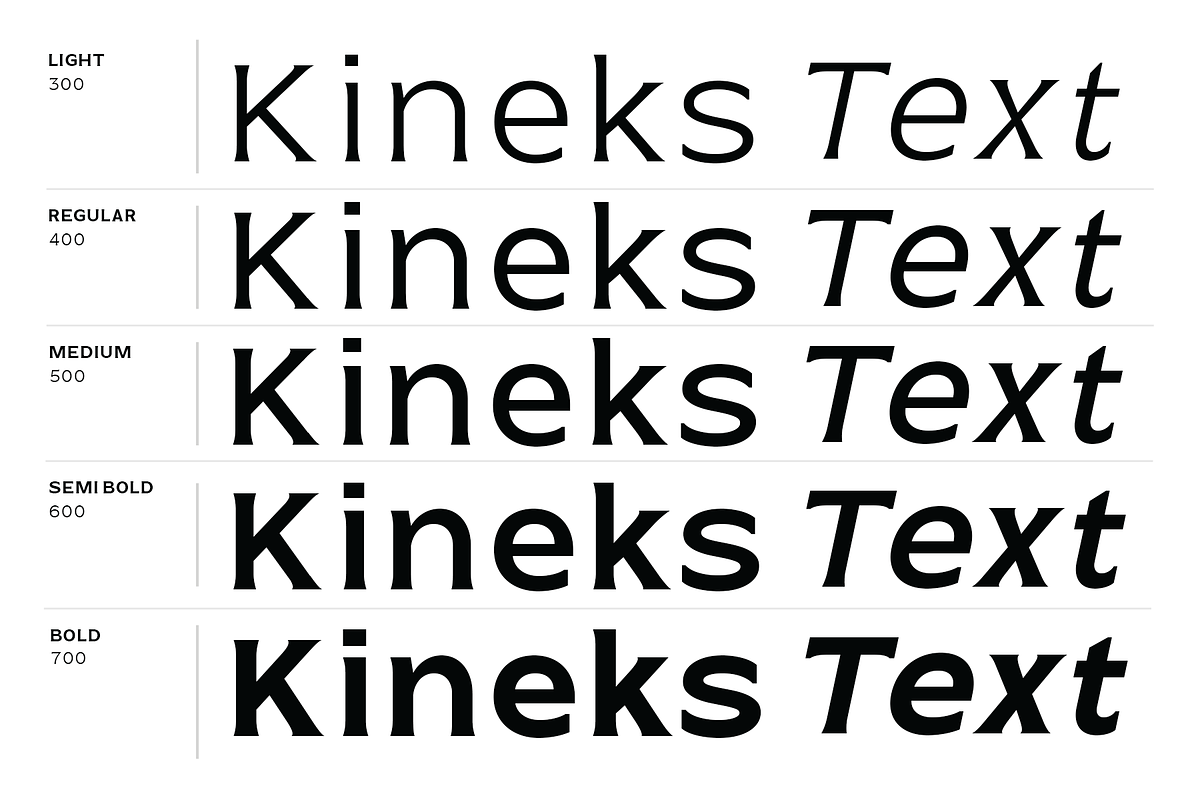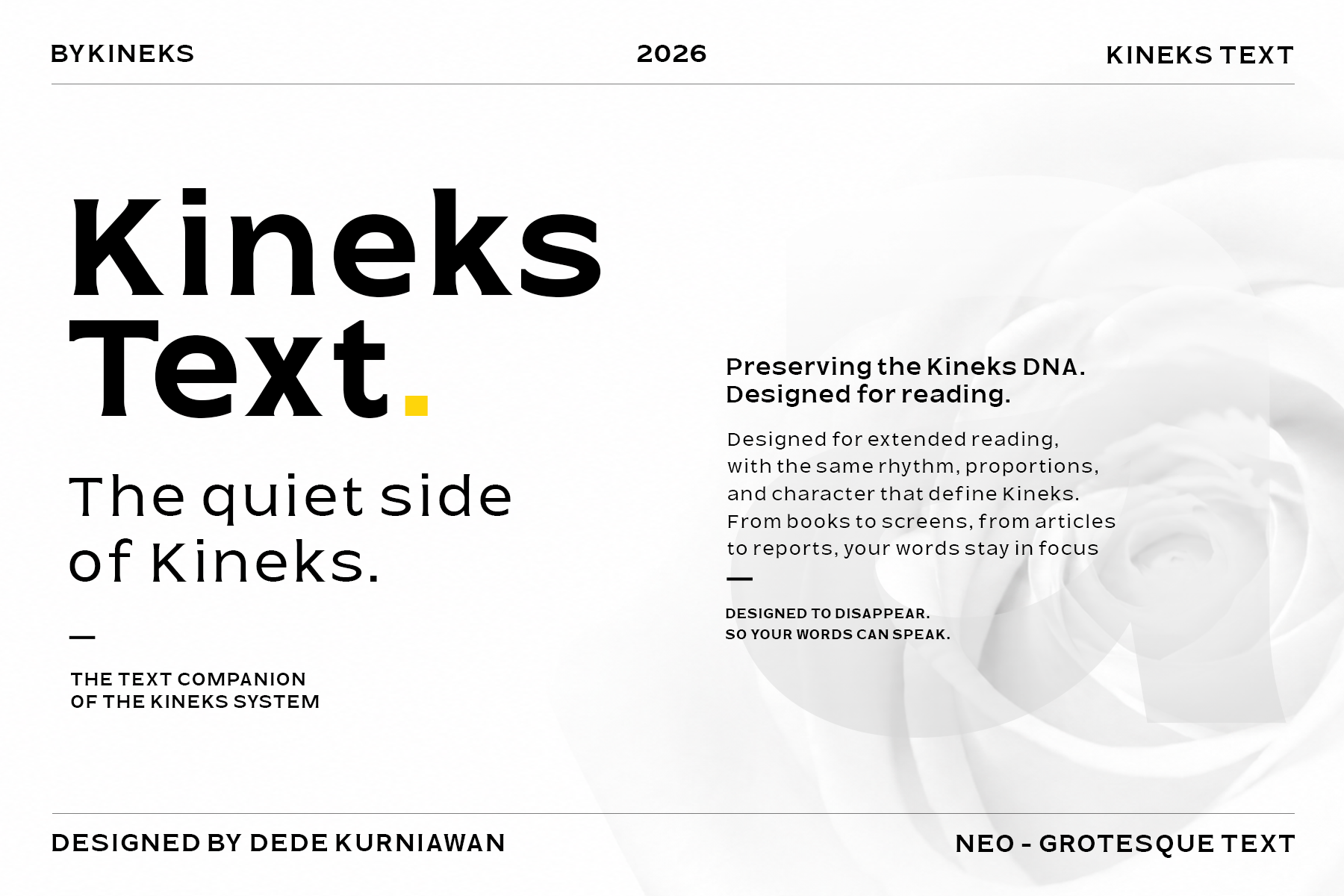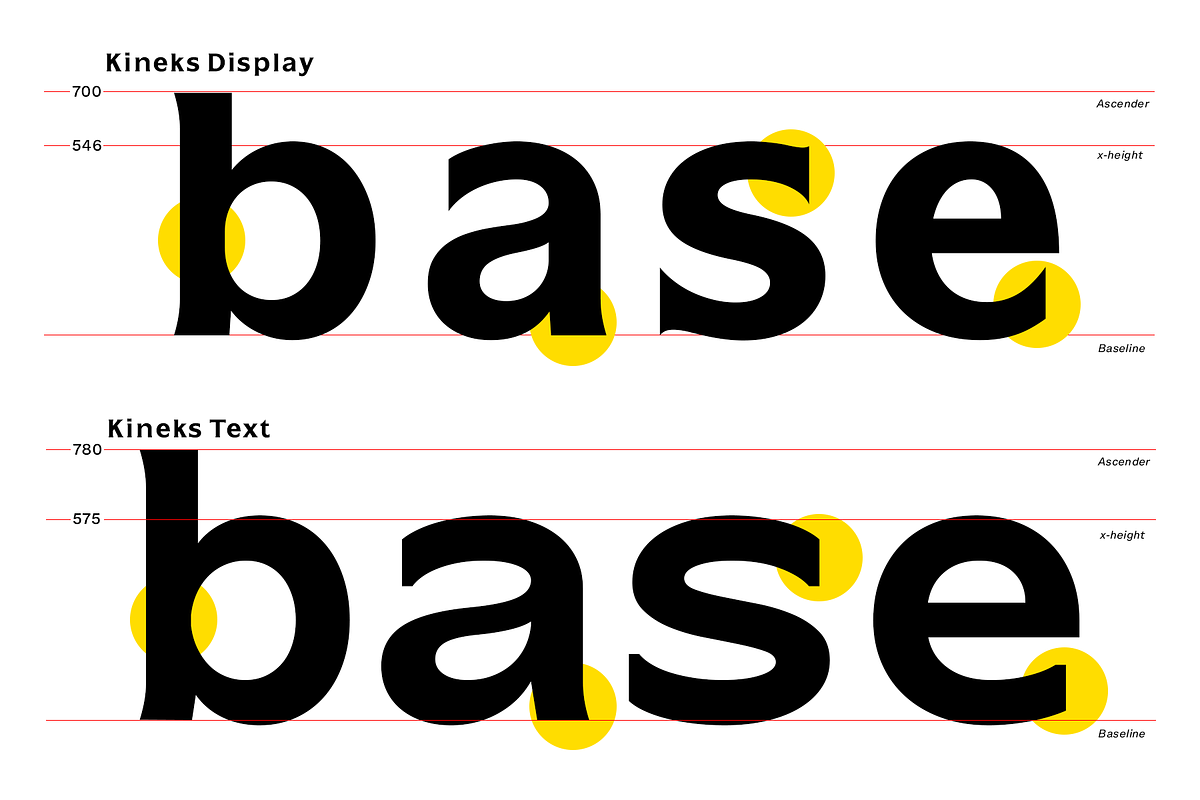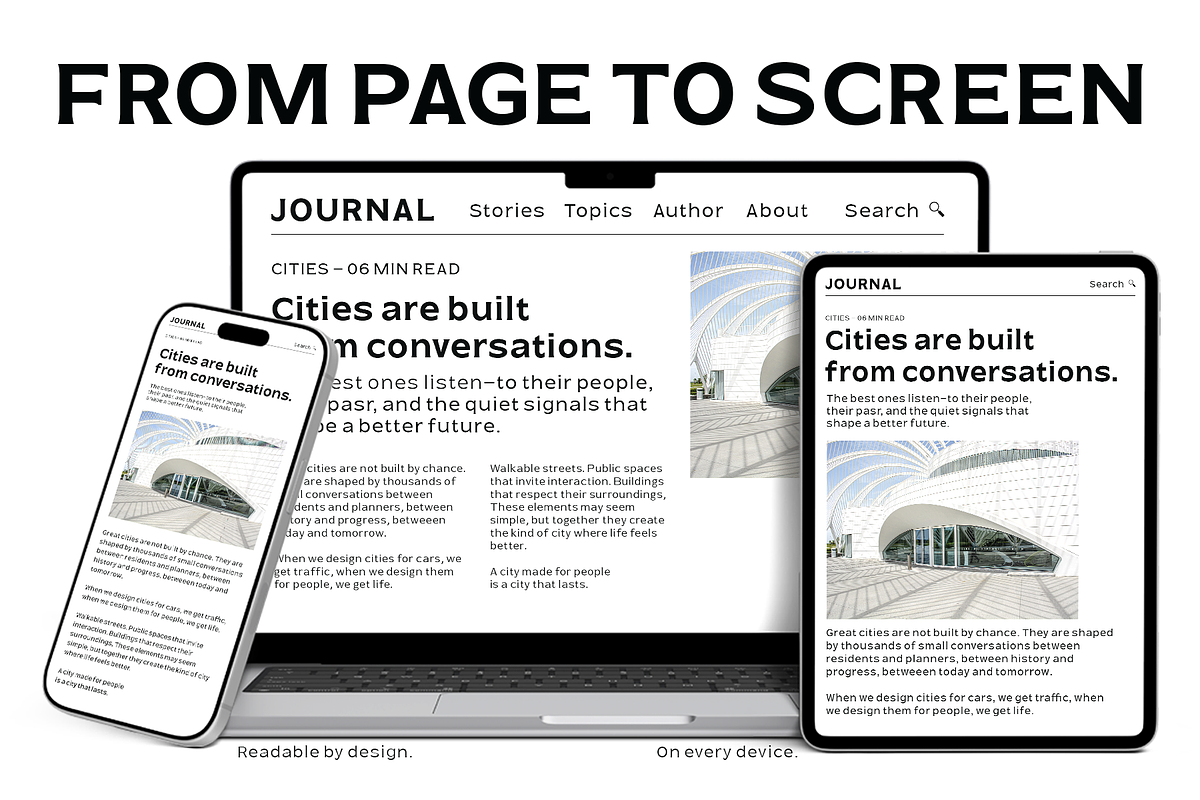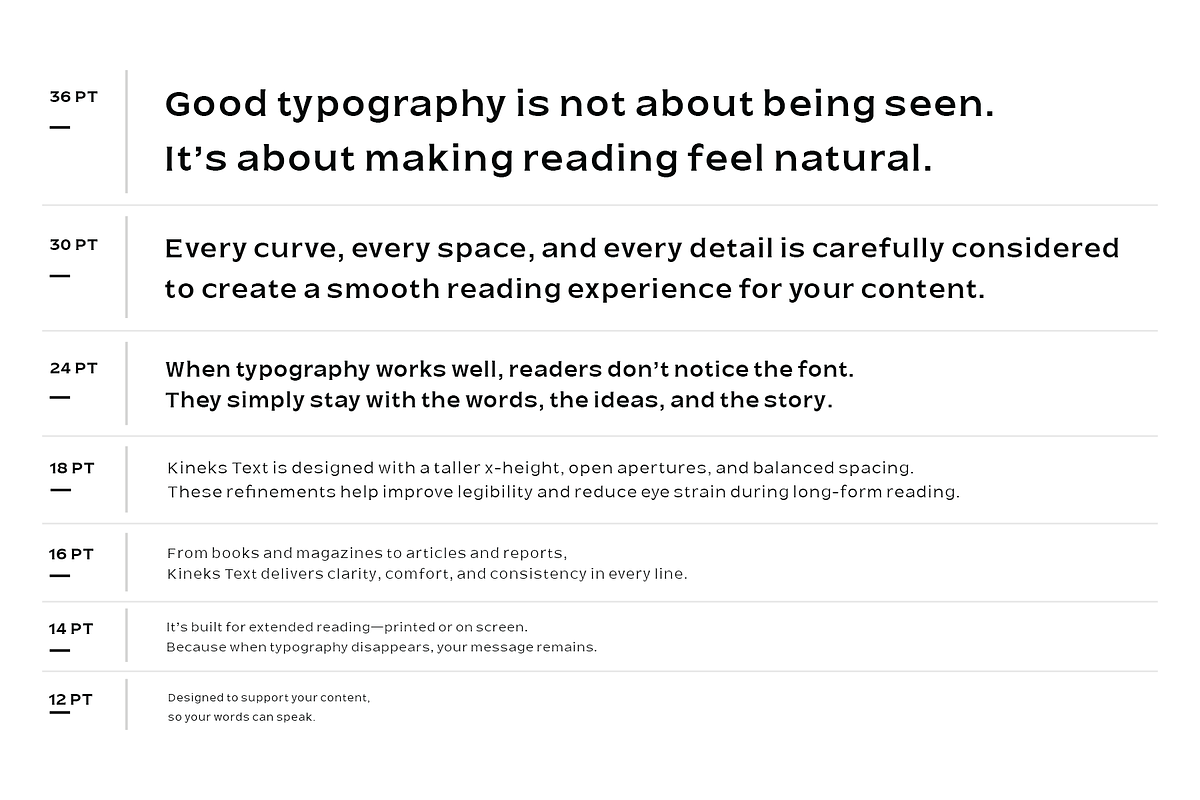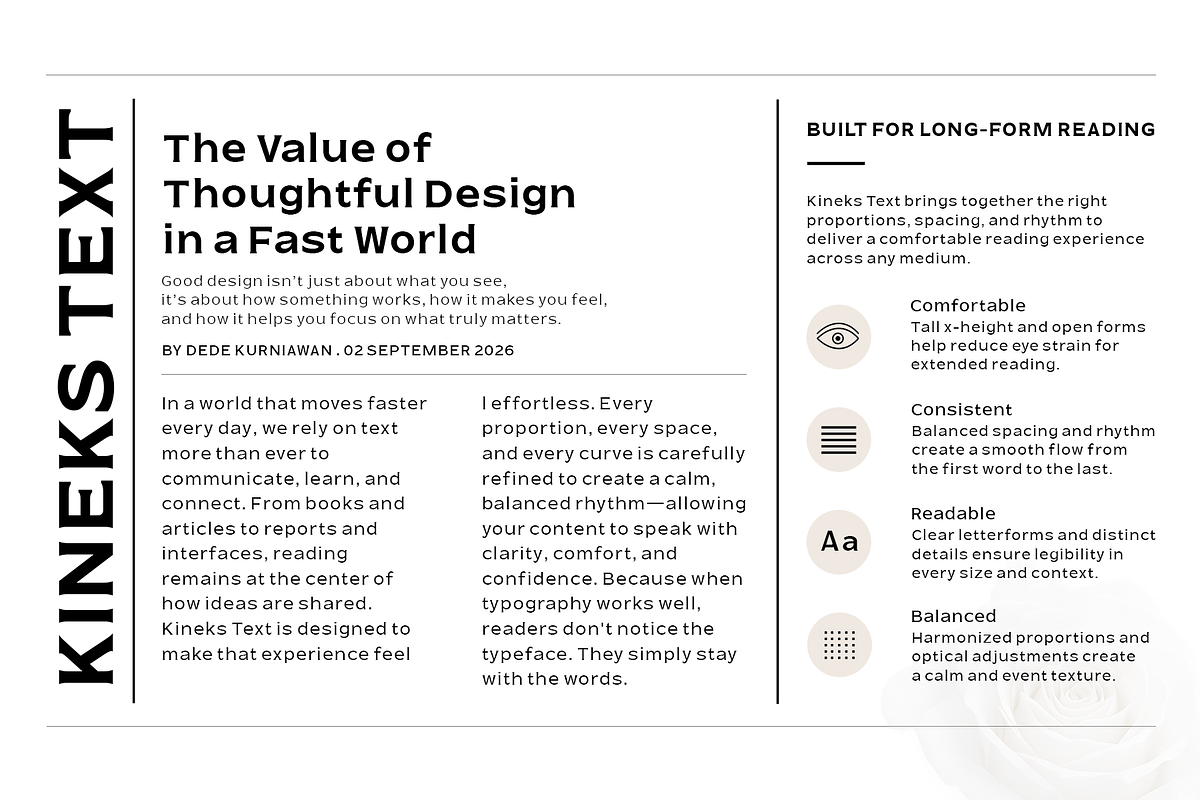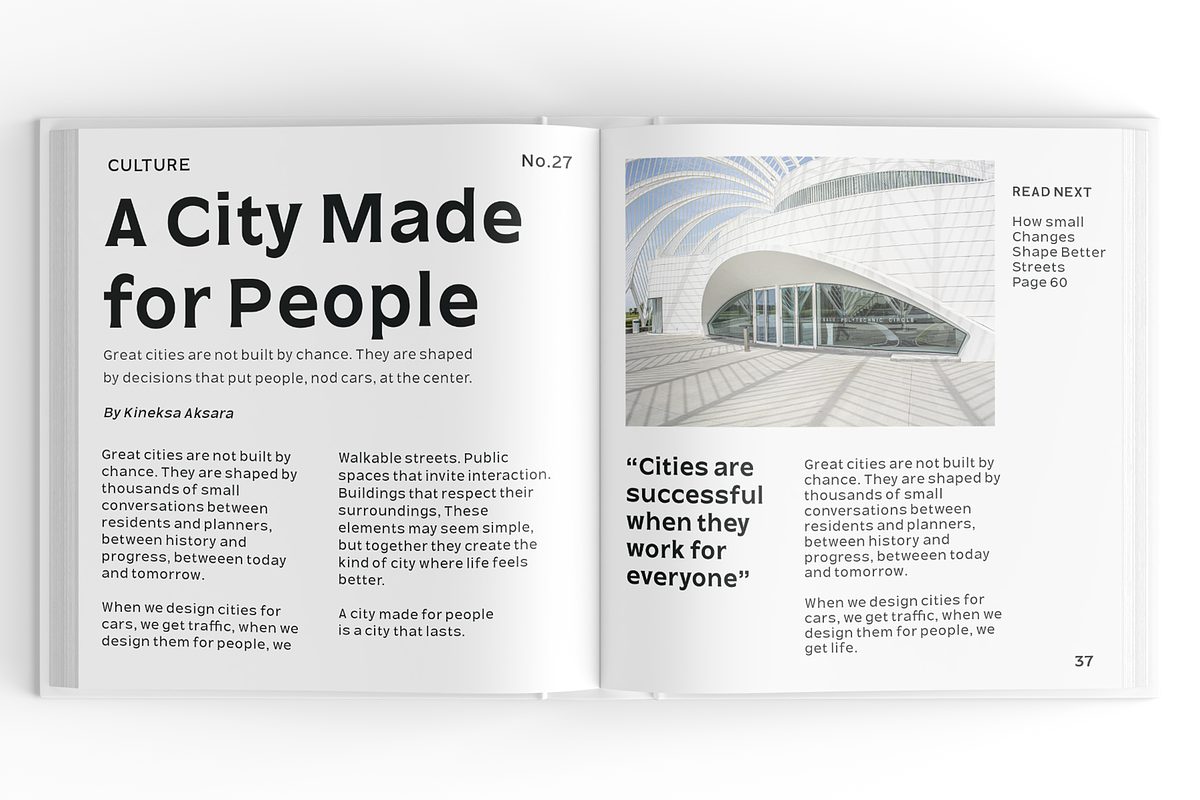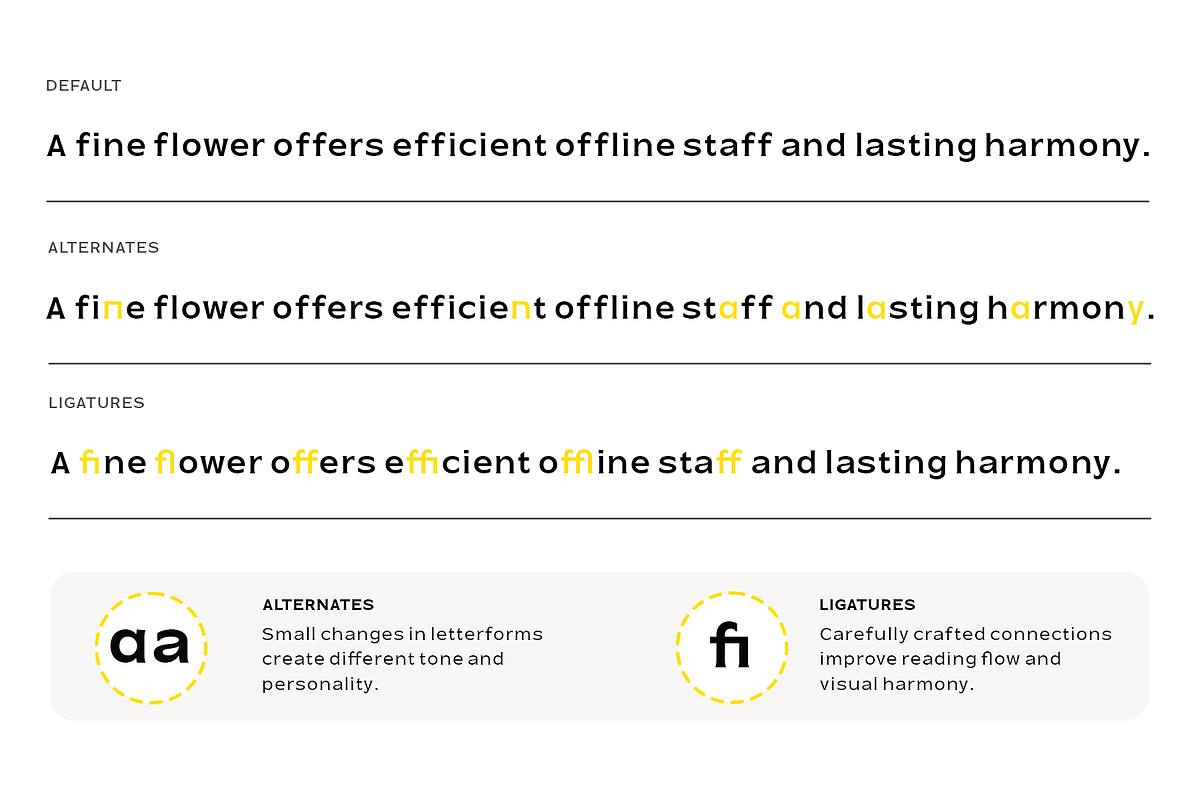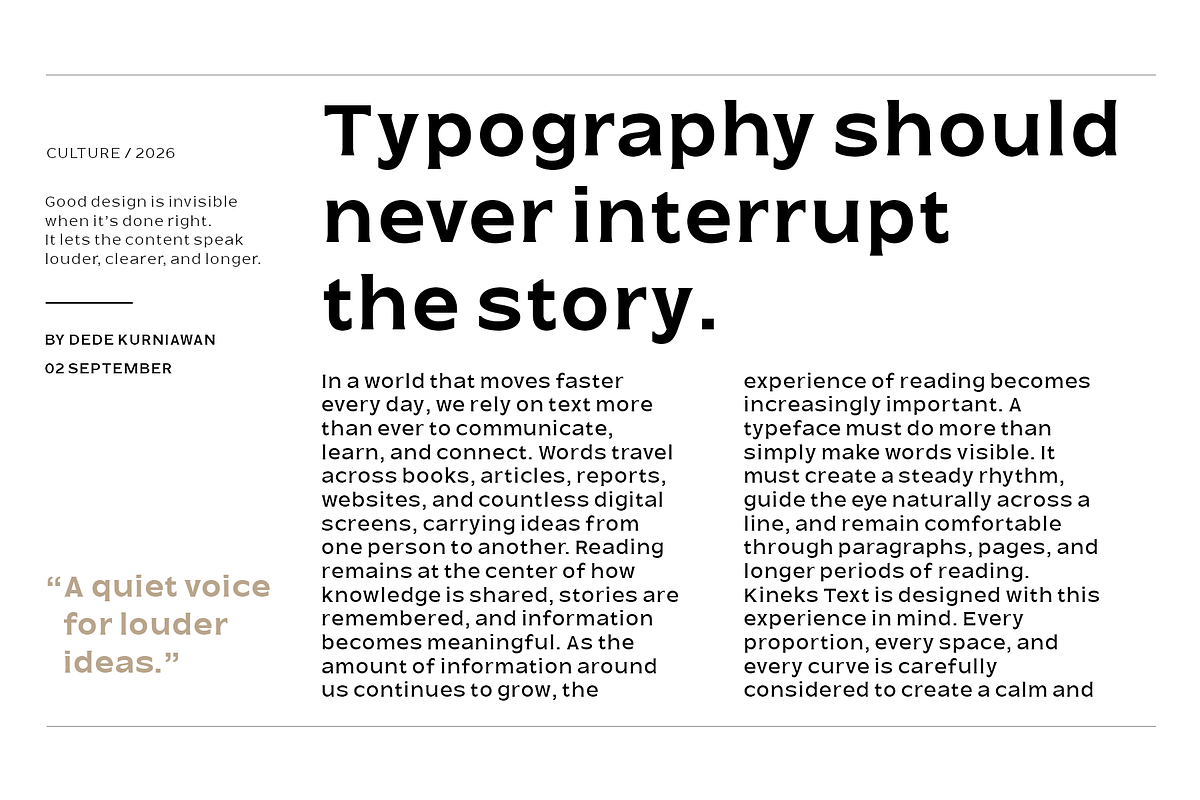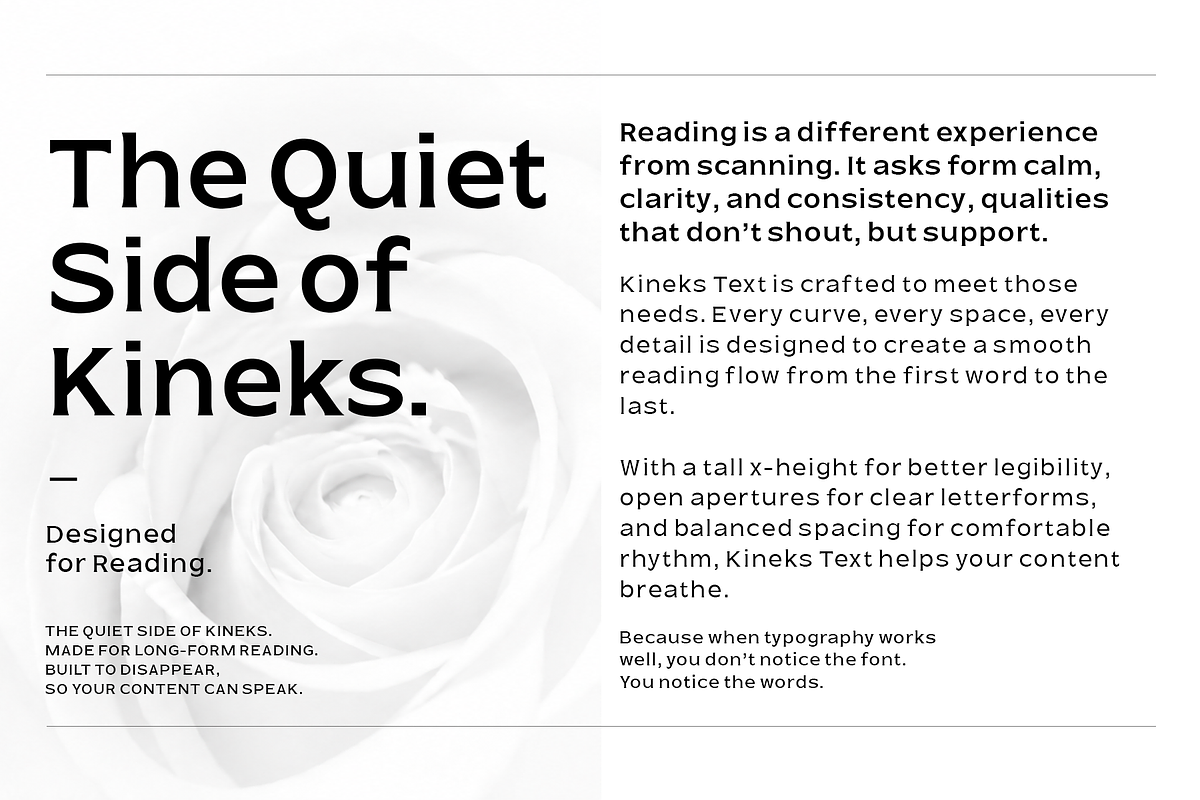
Kineks Text | Neo-Grotesque Typeface
Kineks Text is a neo-grotesque text typeface designed for readability, extended reading, editorial typography, and digital publications. It is the text companion to Kineks Display, bringing the distinctive Kineks Typeface into a more restrained and reading-focused design.
Designed for books, magazines, articles, reports, websites, blogs, and other long-form content, Kineks Text features a generous x-height, open apertures, clear letterforms, balanced proportions, and carefully tuned spacing for a smooth and consistent reading rhythm. The design is optimized to remain comfortable at small text sizes while retaining the character of the wider Kineks family.
Kineks Text includes 10 styles from Light to Bold, with Upright and Oblique styles. Standard ligatures and stylistic alternates provide subtle typographic variation without disrupting the reading texture.
As part of the evolving Kineks type system, Kineks Text is designed to work alongside Kineks Display and future Kineks families, allowing different typefaces within the system to serve different typographic roles while maintaining a shared visual DNA.